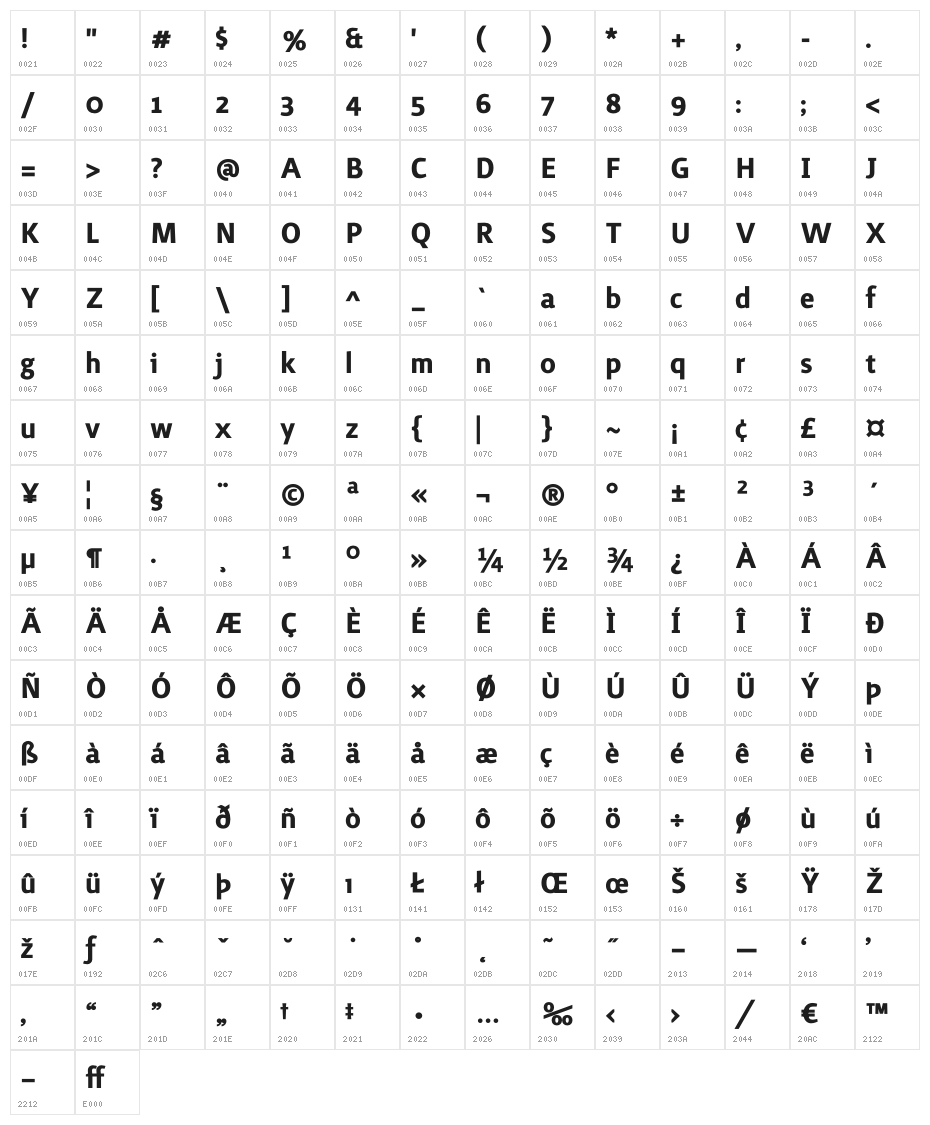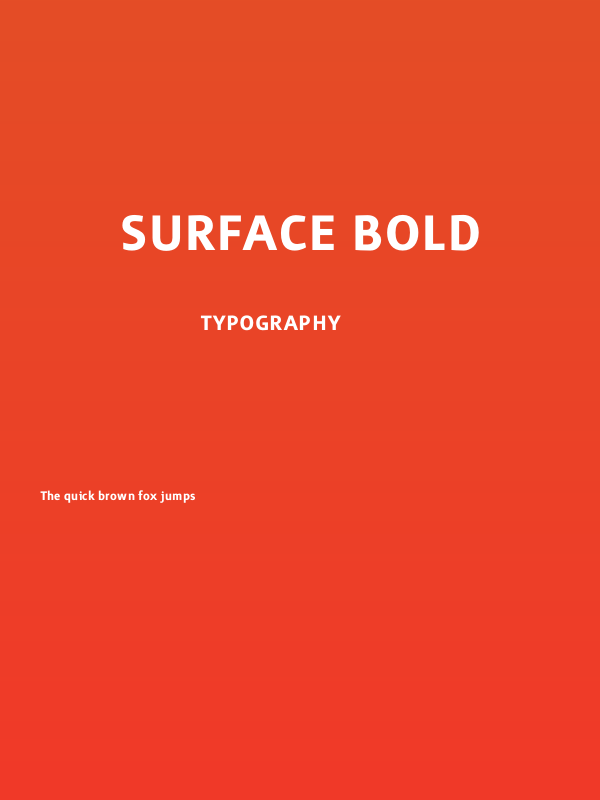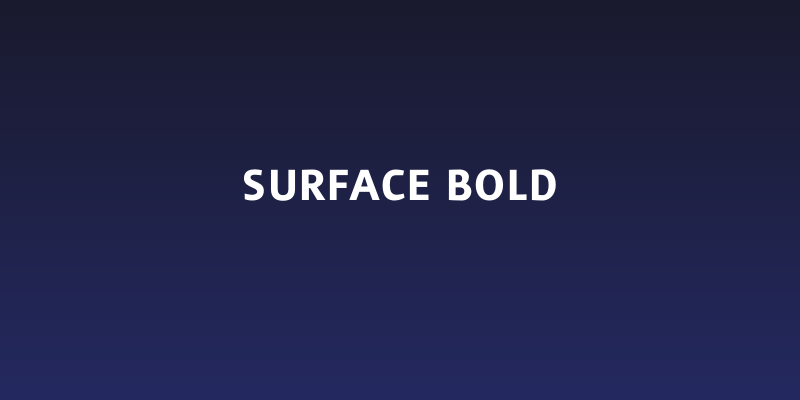
Surface Bold Font
Surface Bold Description
This font features a bold and robust design, characterized by its strong and confident letterforms. The characters are evenly weighted, providing a sense of stability and clarity. The uppercase letters are tall and commanding, while the lowercase letters maintain a consistent height, ensuring readability. The numerals are clear and distinct, making them easily distinguishable. Special characters are well-defined, adding versatility to the font's use. Overall, this font exudes a modern and professional appearance, suitable for various applications where impact and legibility are paramount.